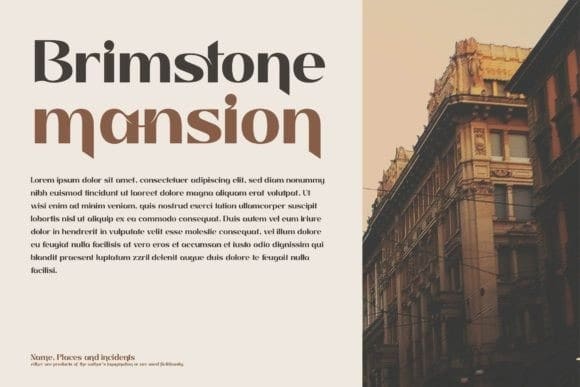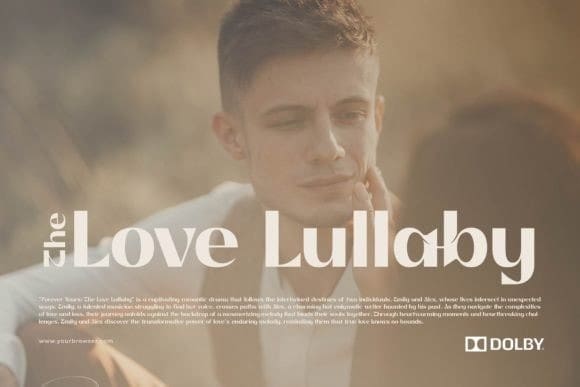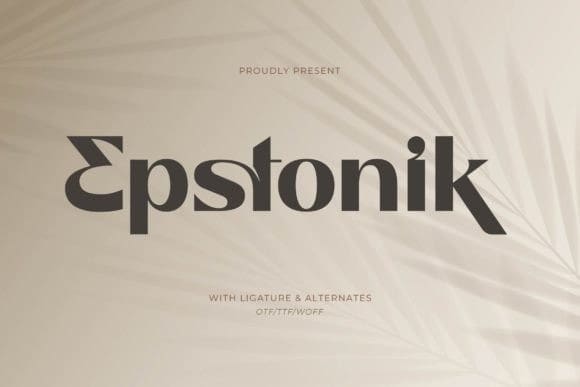
Epstonik Font
Epstonik Font is a luxury serif font that is suitable for any project such as logos, branding projects, homeware designs, product packaging, mugs, quotes, posters, shopping bags, t-shirts, book covers, name card, invitation cards, greeting cards, label, photography, watermark, special events, and all your other luxury and beautiful projects.